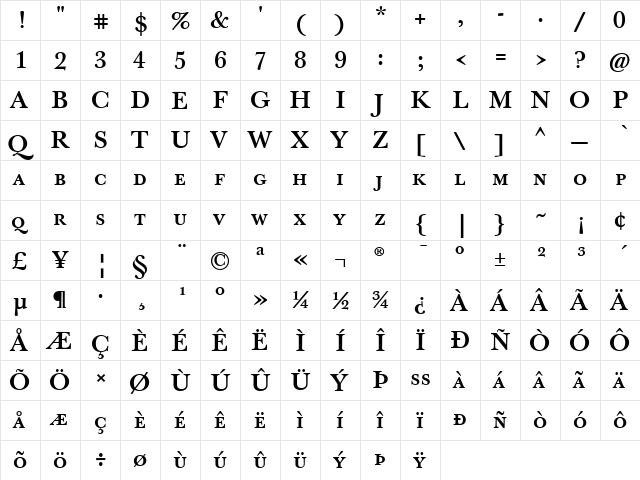
JohnBaskerville Regular
Design Context for JohnBaskerville Typeface
JohnBaskerville takes a measured approach to typography — its balanced proportions and neutral character make it a reliable workhorse for both digital and print work.